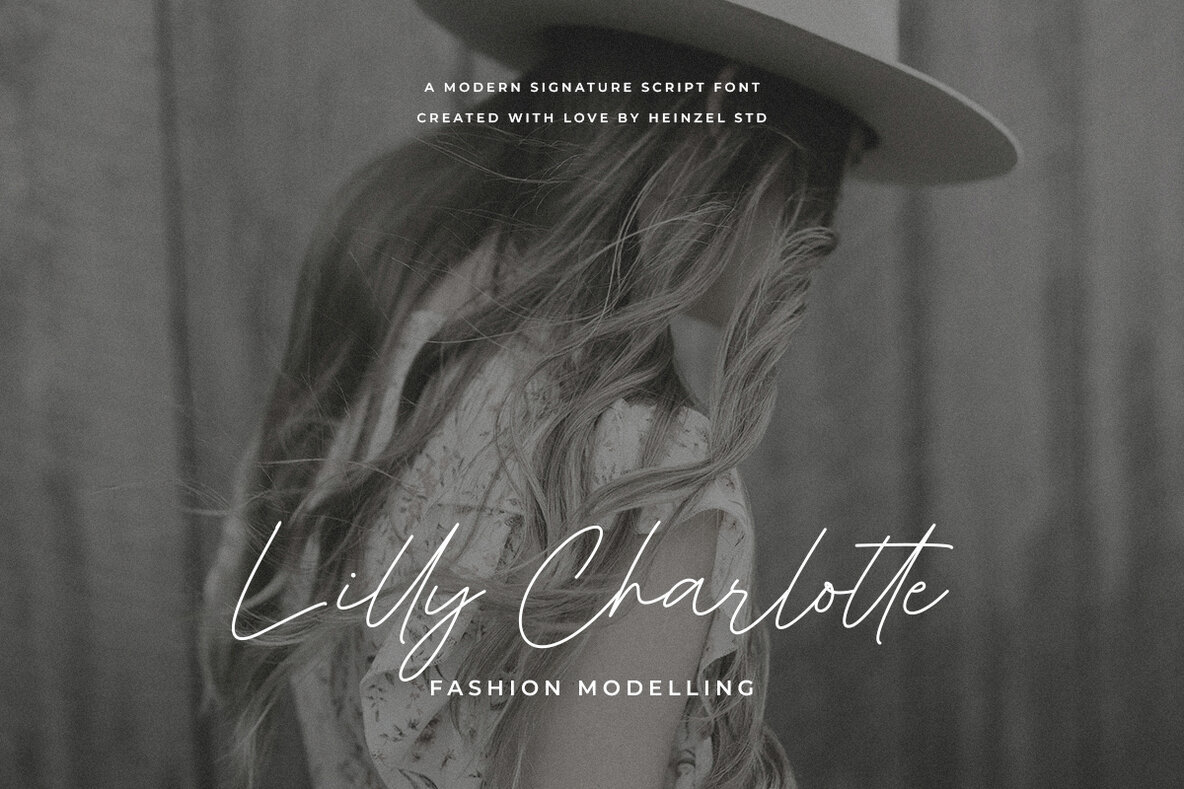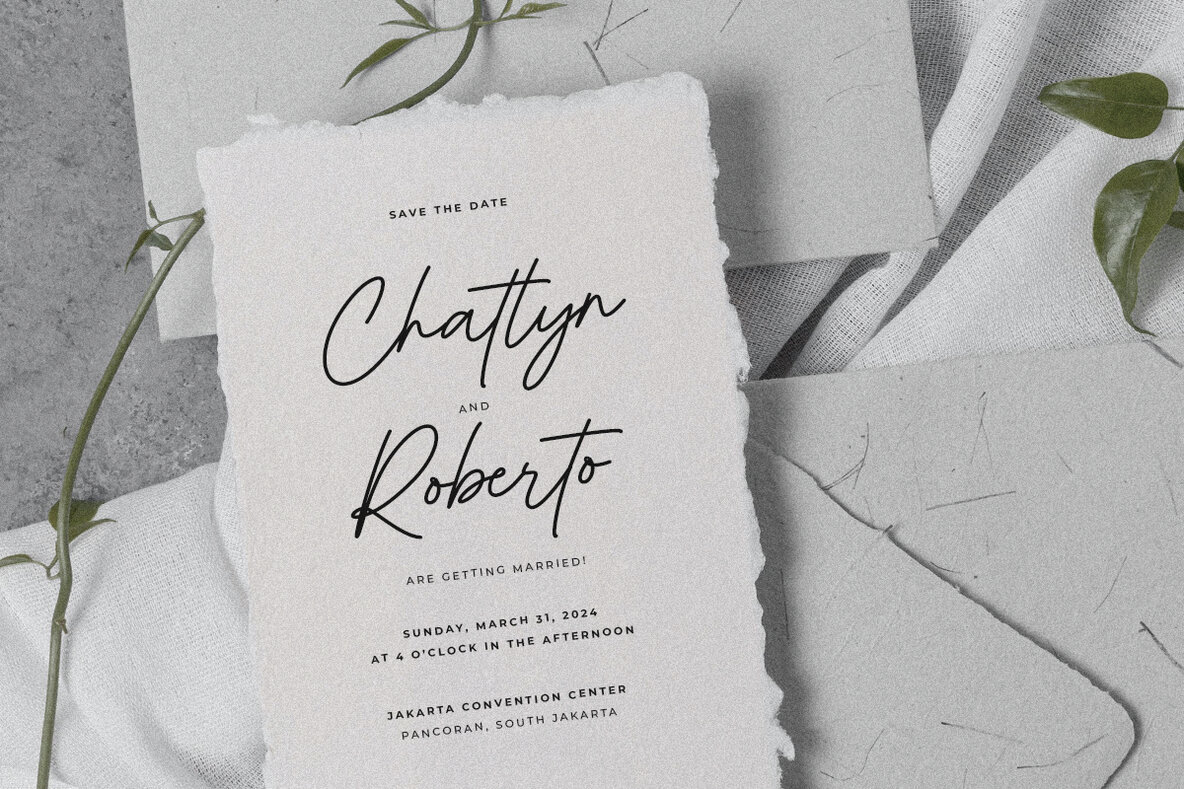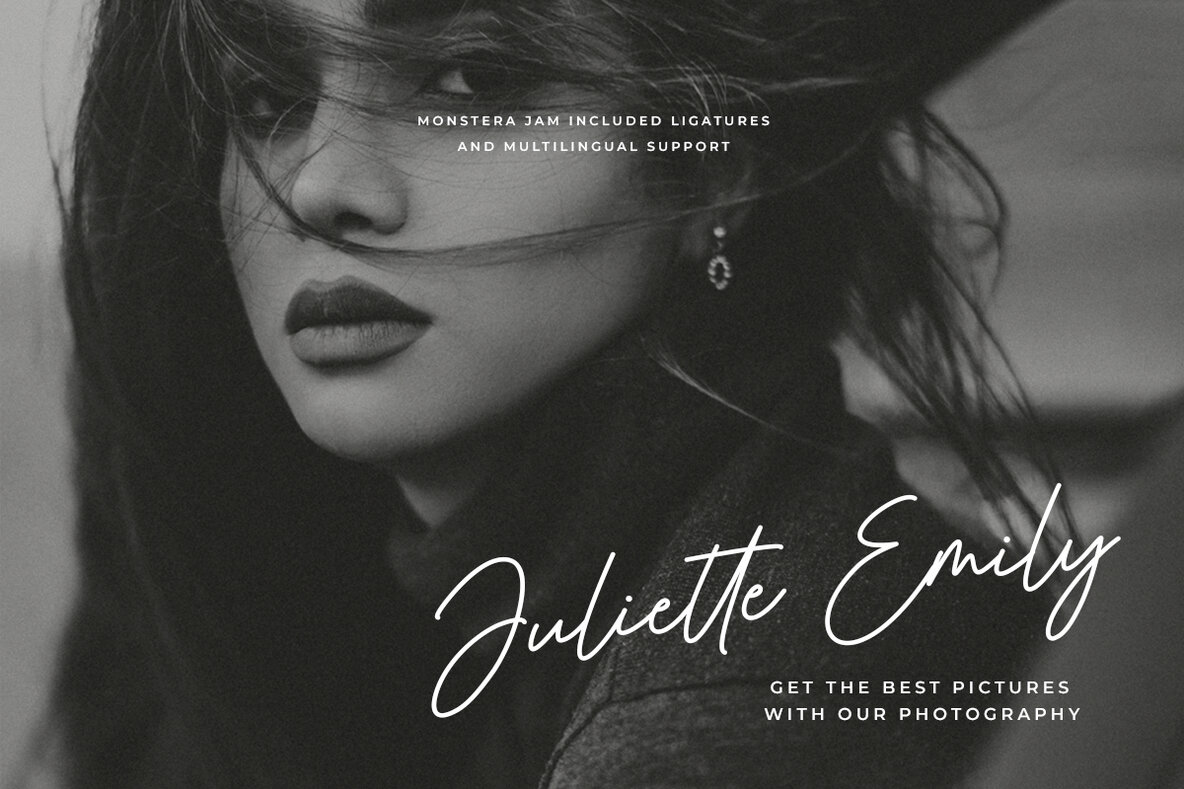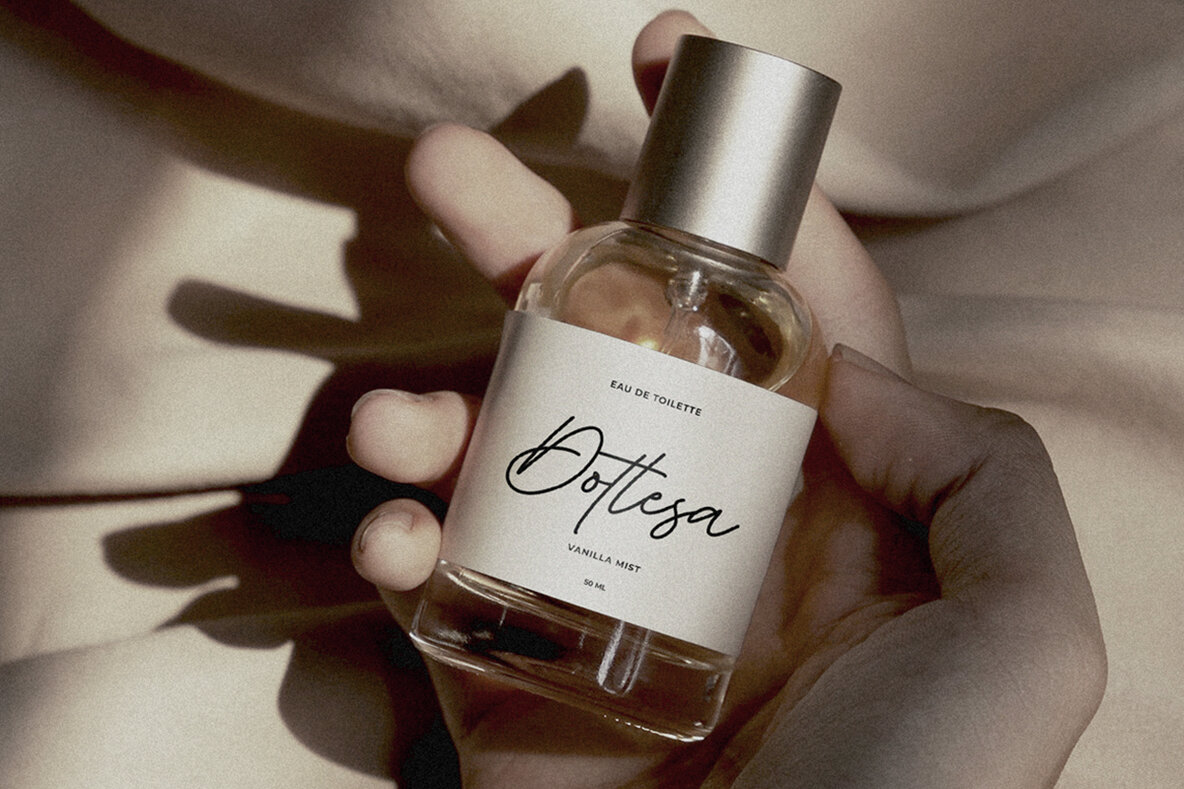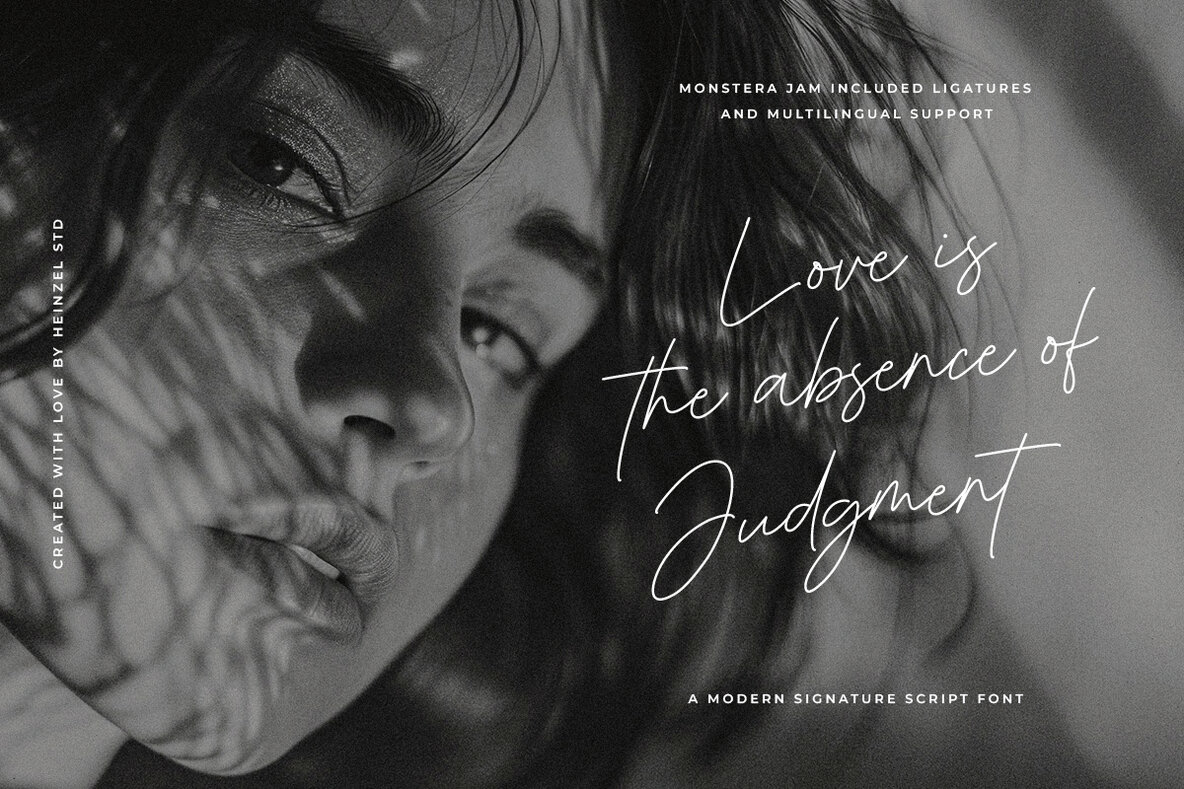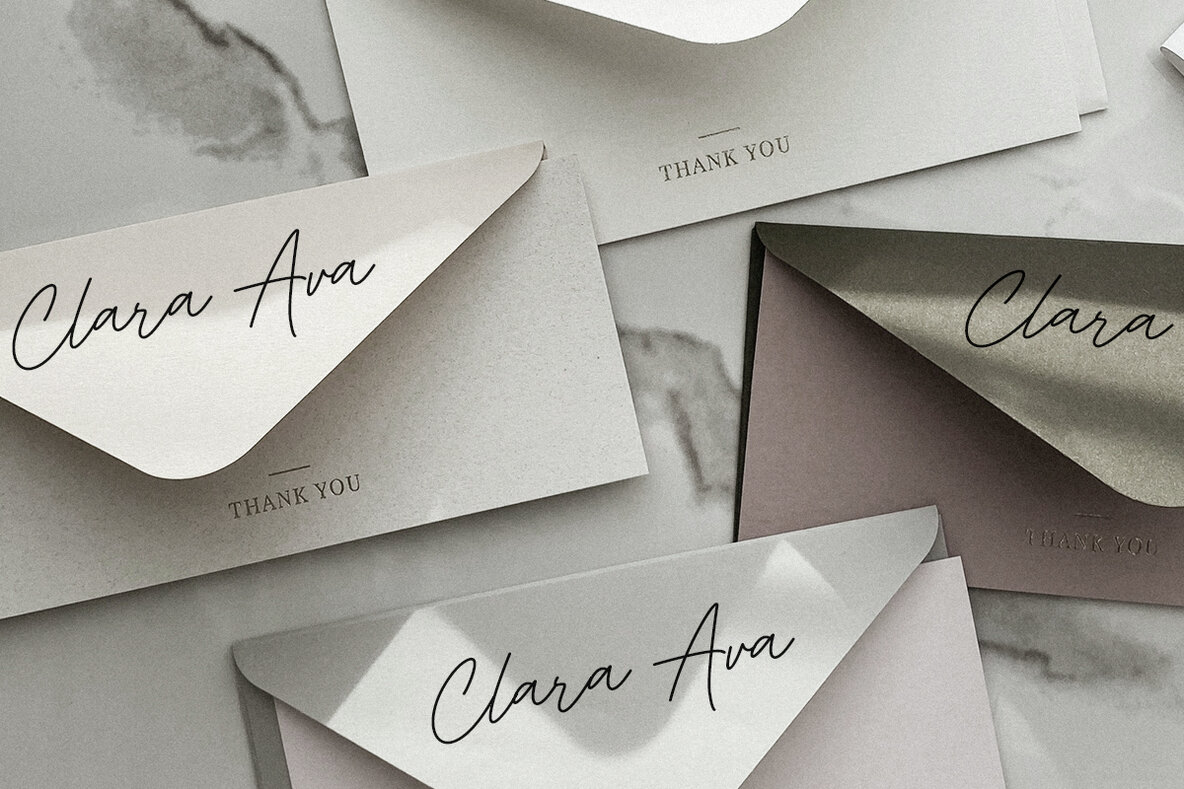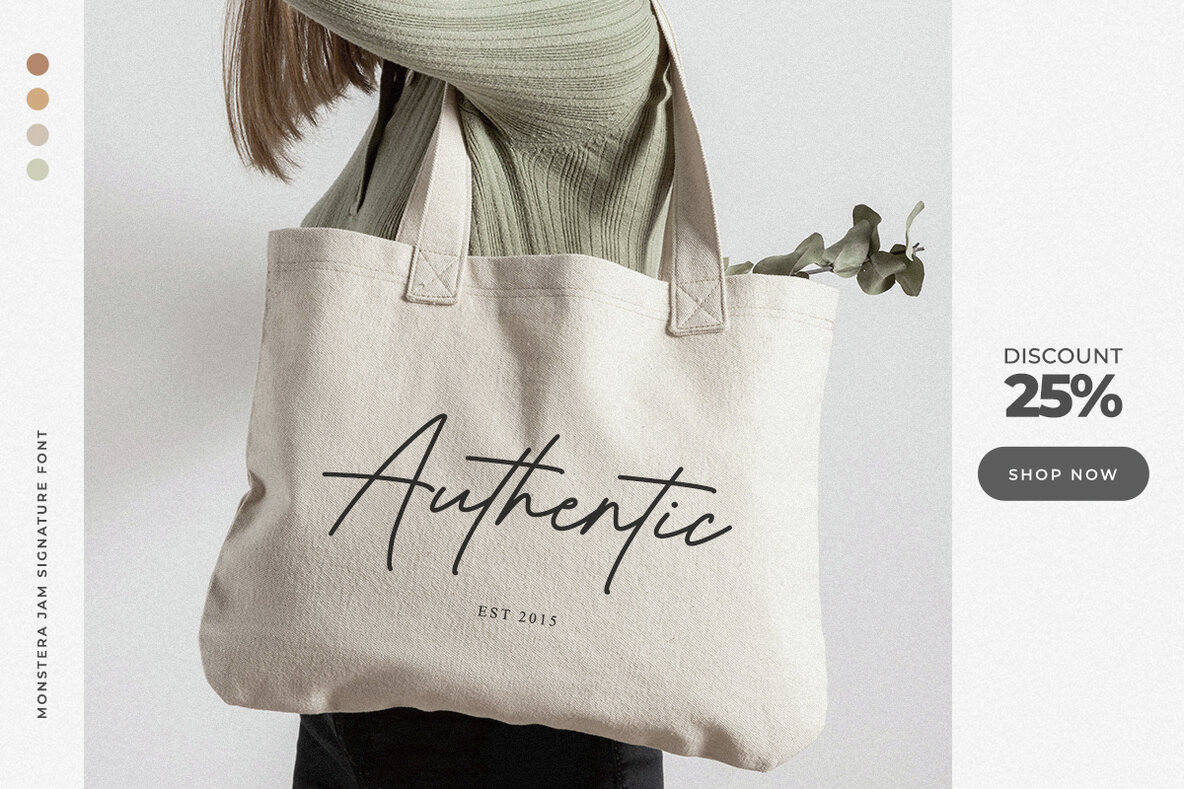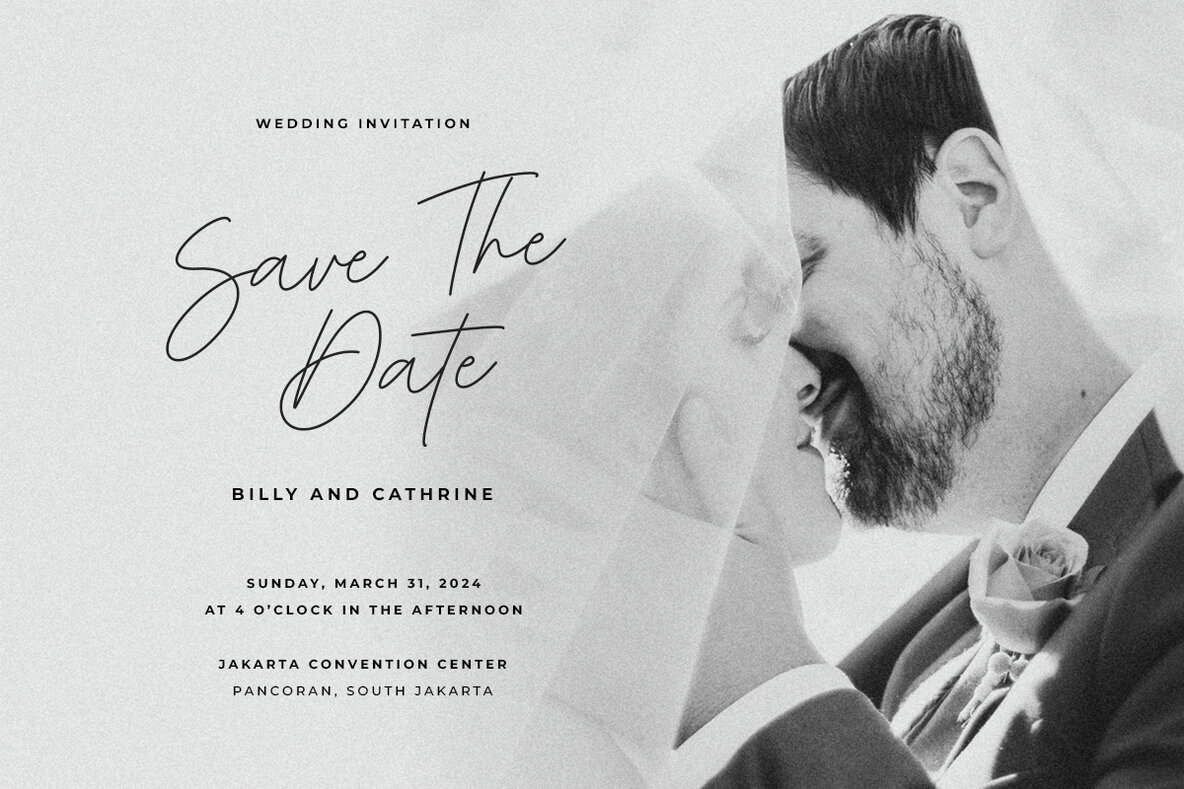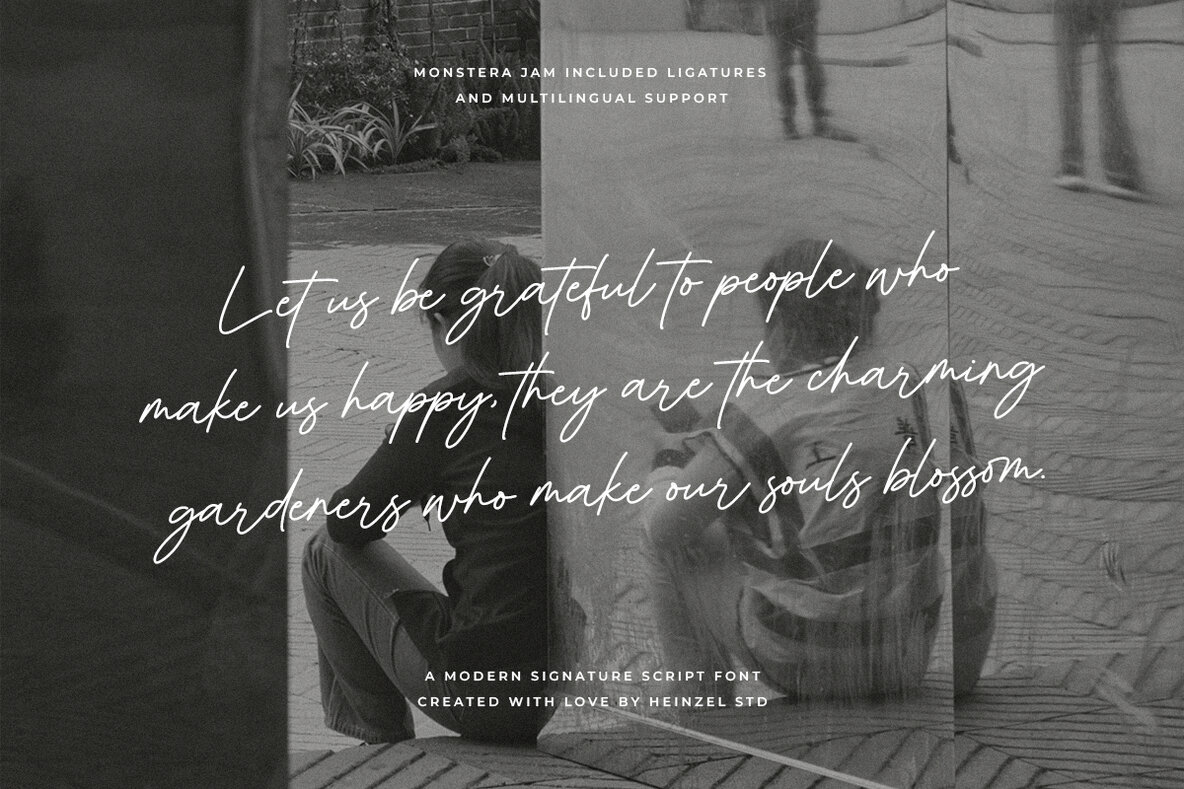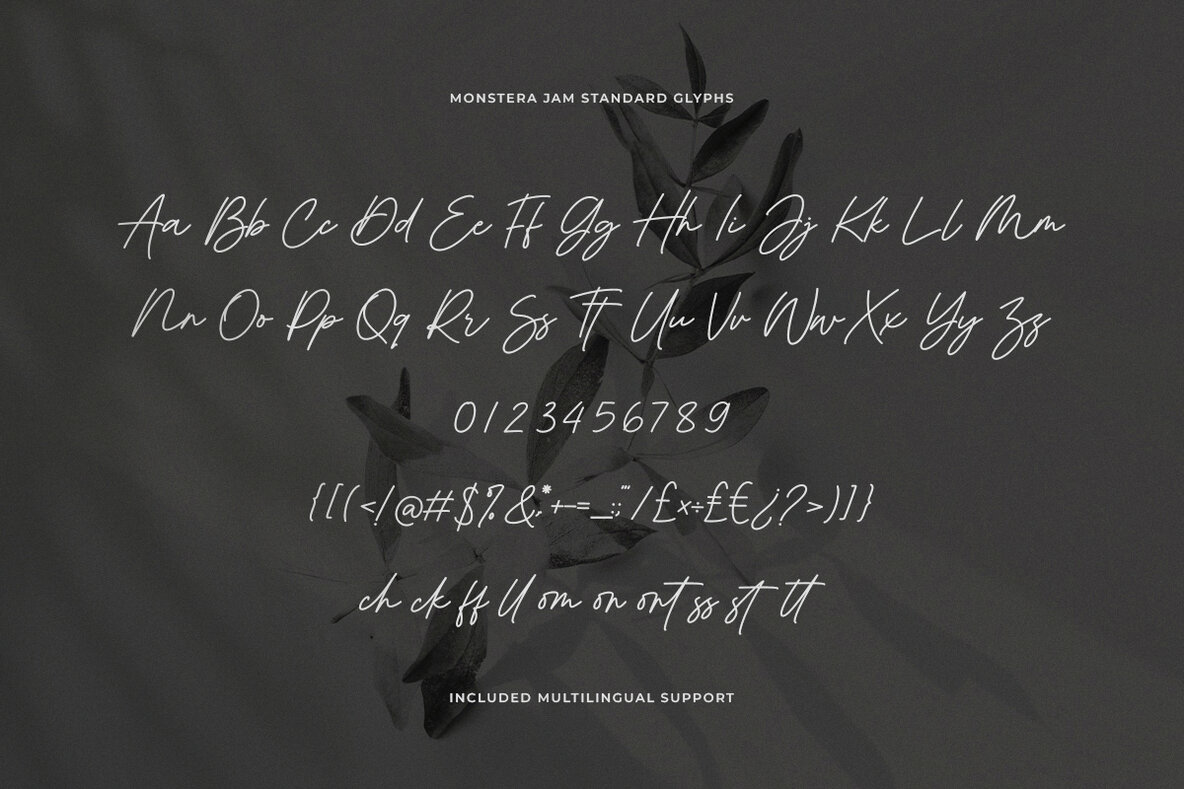
Monstera Jam Font
Monstera Jam is a modern signature font characterized by an elegant touch, making it ideal for a variety of design projects. It creates stunning visuals on wedding invitations, thank you cards, quotes, and greeting cards. Perfectly suited for logos, branding, business cards, social media posts, magazines, and marketing materials, this font adds a handwritten feel to any project.Monstera Jam: An Elegant Modern Signature Font